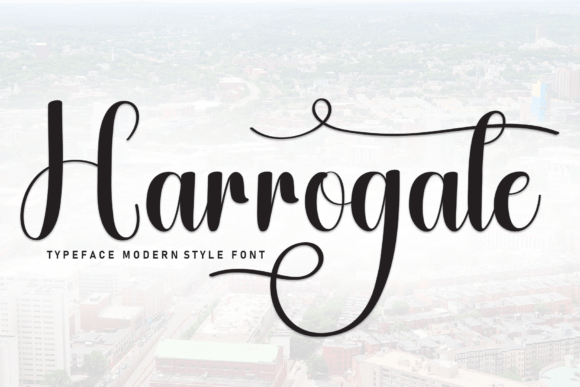
Introducing Harrogate Font, the pinnacle of elegance and sophistication in the world of typography. This captivating script font boasts clean lines, classic letterforms, and a timeless design that exudes sheer brilliance. With Harrogate, your projects will be immersed in a realm of luxury, grace, and unparalleled refinement, leaving your audience breathless.
Unleash your inner artist and embrace the transformative power of Harrogate Font. Whether you're designing high-end brand identities, creating editorial layouts with a touch of elegance, or crafting upscale designs that demand attention, Harrogate will elevate your work to extraordinary heights. Immerse yourself in a symphony of visual aesthetics as you witness the exquisite detailing, flowing curves, and harmonious balance of each character.
With Harrogate Font as your trusted companion, you'll captivate your audience with its innate ability to elevate ordinary designs into extraordinary masterpieces. Its timeless appeal transcends trends, ensuring that your designs remain relevant and captivating for years to come. Step into a realm of sophistication and discover the endless possibilities that await you with Harrogate Font. Elevate your creative vision to new heights and leave an unforgettable impression that will resonate with your audience.